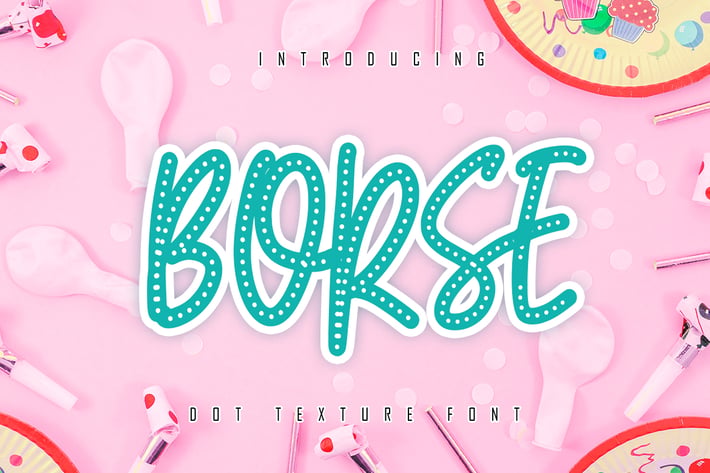
BORSE - Dot Display Font
Our new product is called BORSE Dot Display Font. Inspired by modern calligraphy, this font is a fun theme for serif calligraphy, posters, food, wedding, branding etc.
+ Ligature
+ Uppercase & Lowercase letters
+ Numbering and Punctuations
+ Multilingual Support
+ Basic Latin Language Support (AÀÁÂÃÄÅCÇDÐEÈÉÊËIÌÍÎÏÑOØÒÓÔÕÖUÙÜÚÛWYÝŸÆß )